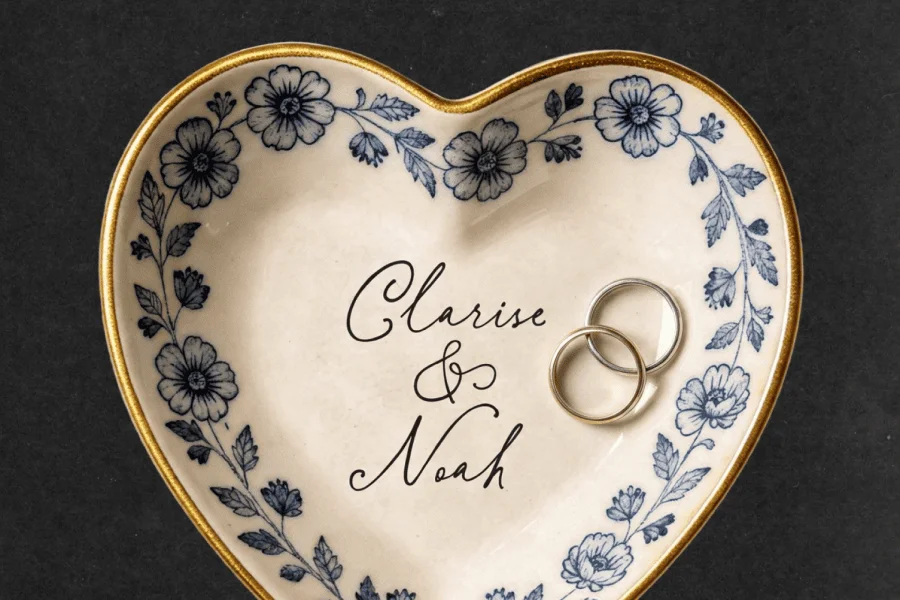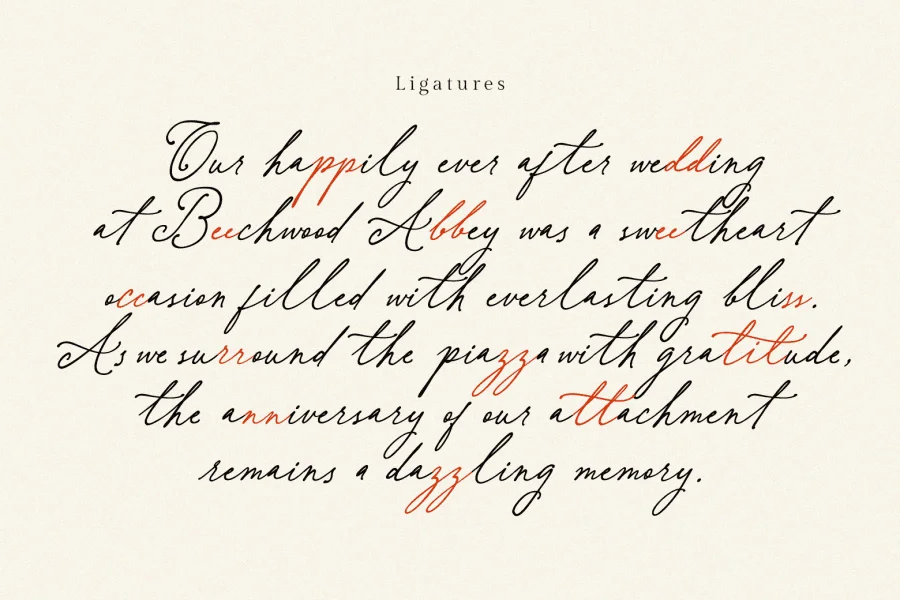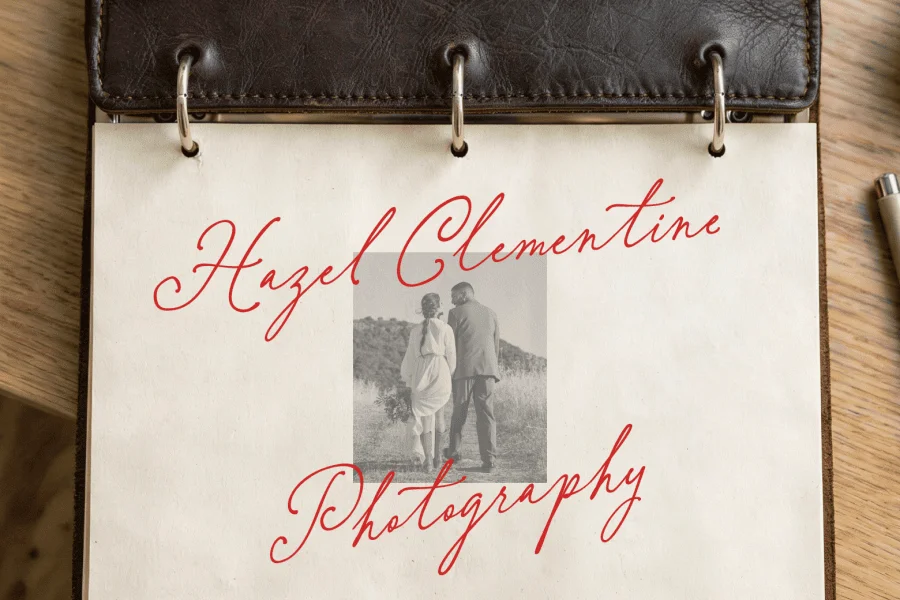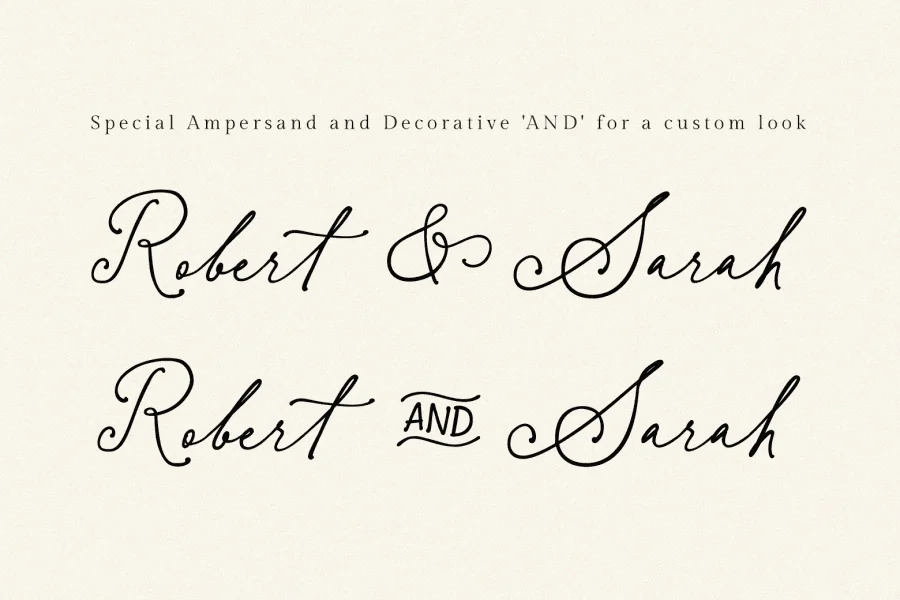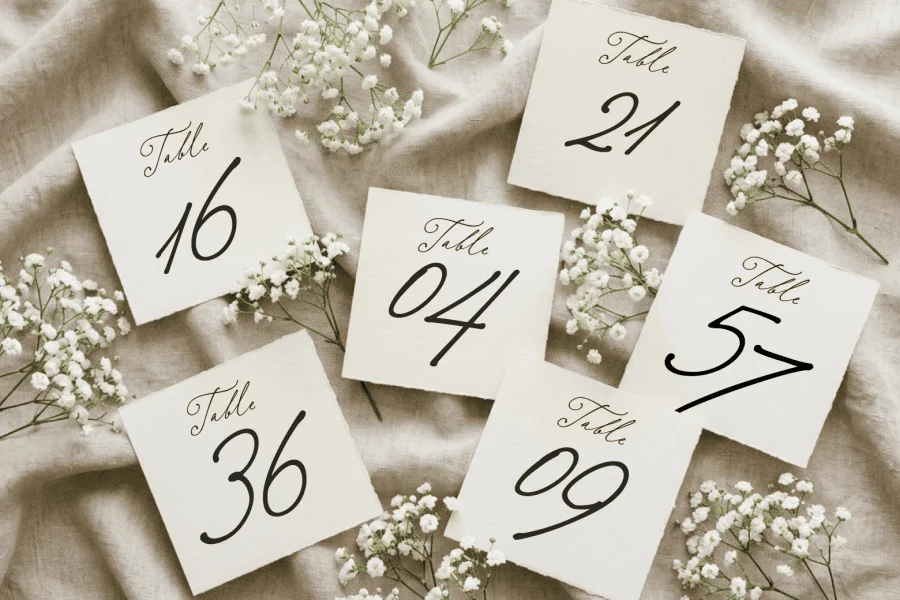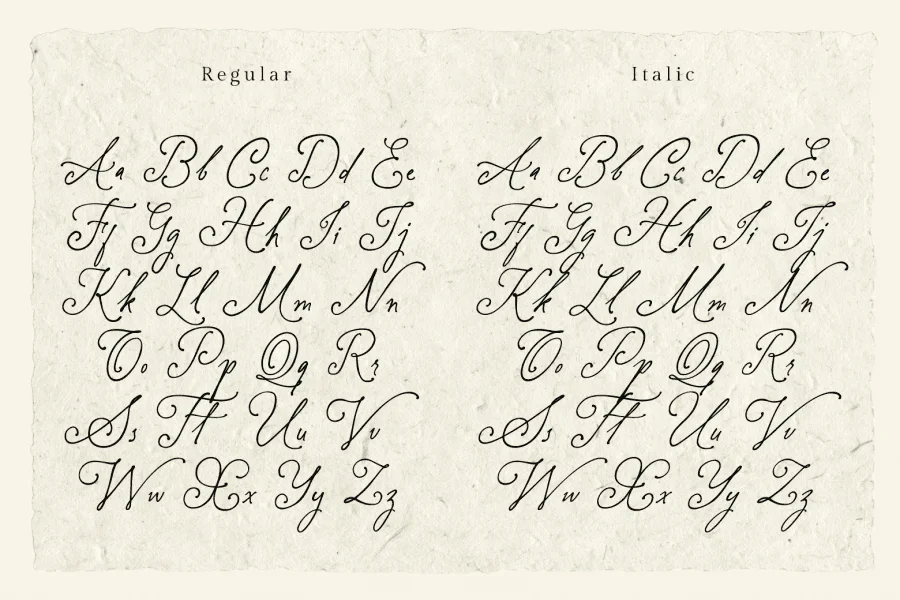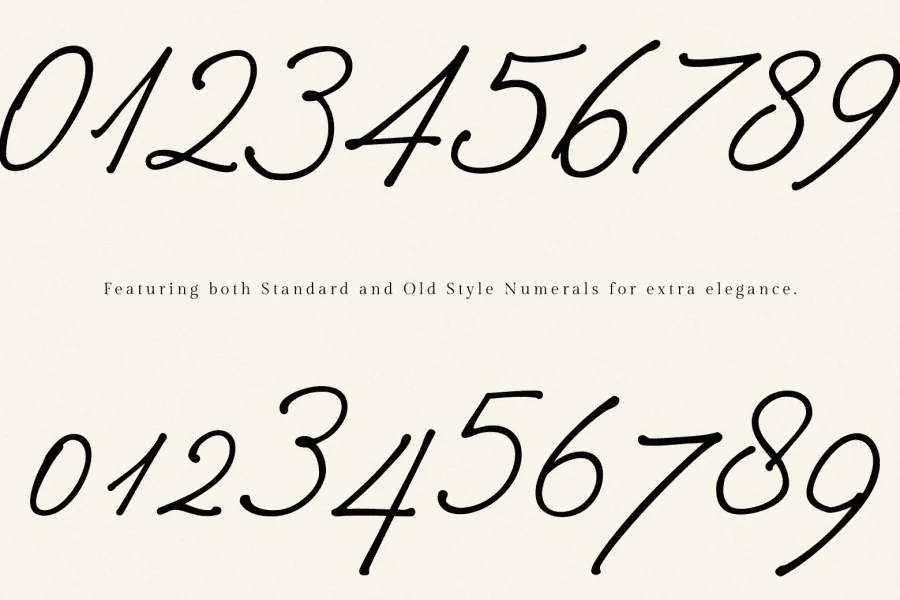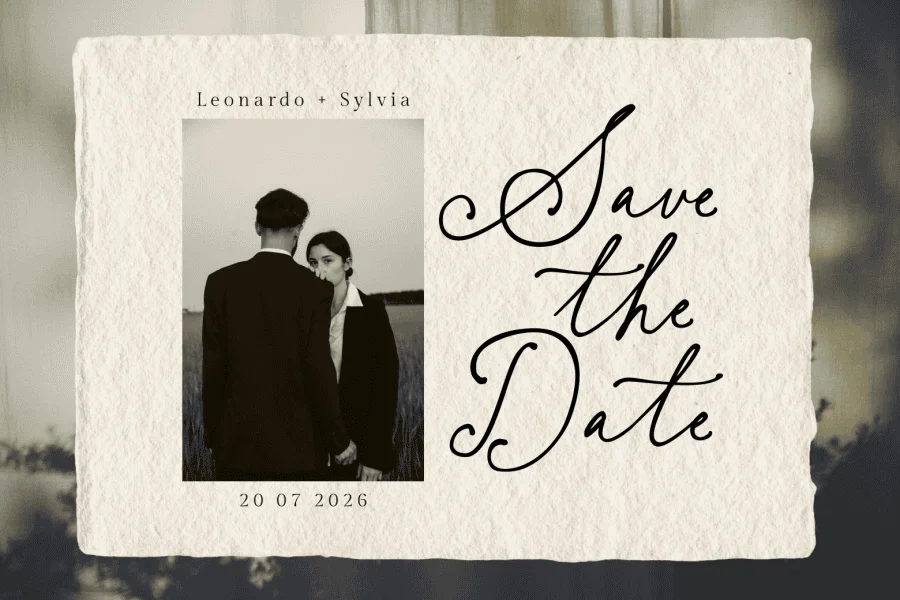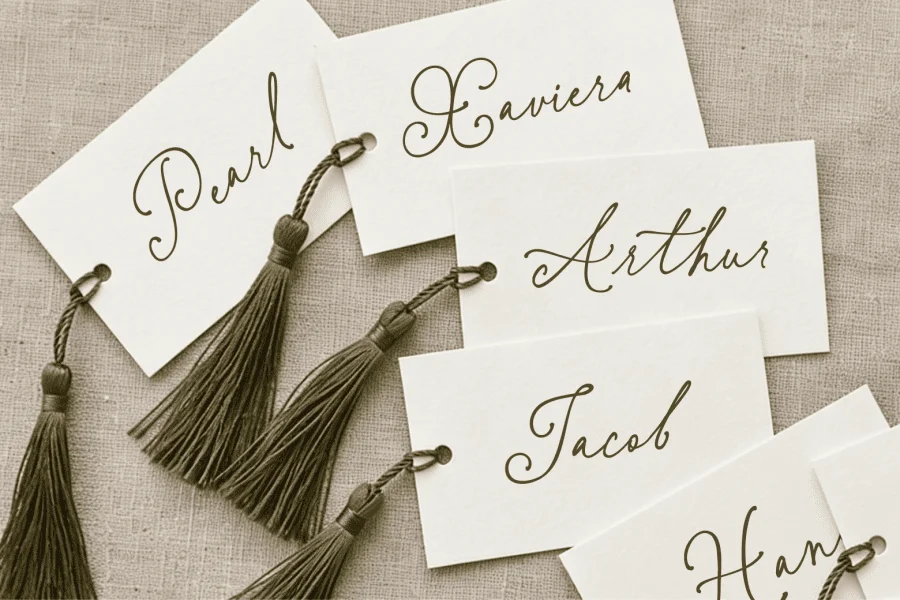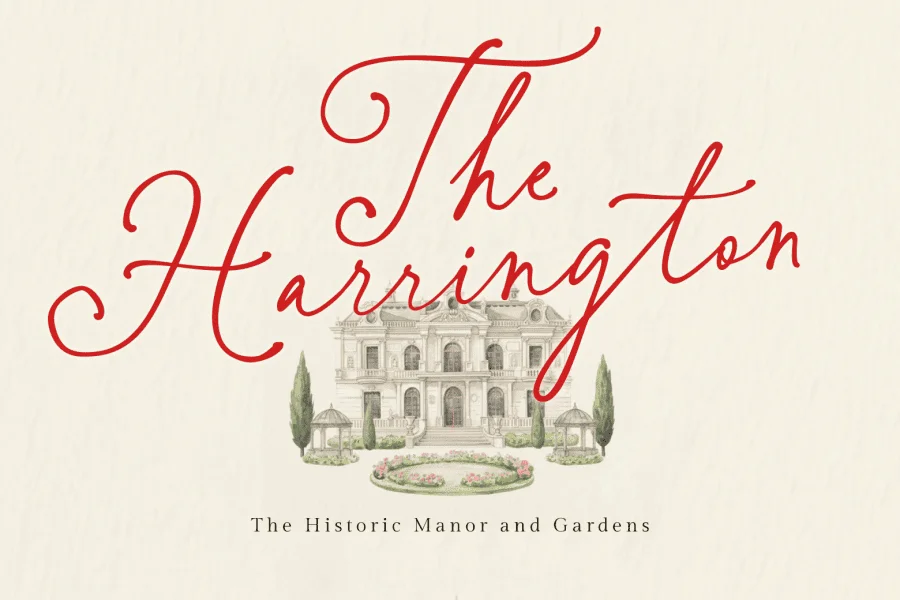
Betris and Daniel is a sophisticated and romantic handwritten font, meticulously crafted to bring a touch of personal charm and high-end aesthetics to your projects. With its fluid strokes and authentic calligraphy feel, this font is the perfect choice for wedding stationery, elegant branding, logos, social media quotes, and more. Available in Regular and Italic.
What makes Betris and Daniel truly stand out is its Smart Contextual Alternates. Say goodbye to rigid, robotic script endings! This font is "smart enough" to clean up its own tails. When turned on, it automatically detects the end of your words and replaces long, clumsy connectors with natural ending swashes for a flawless, authentic hand-written flow. It also features a comprehensive set of characters, including unique ligatures that mimic natural handwriting and two distinct styles of "and" connectivity (a graceful ampersand and a decorative catchword) to give your layouts a custom, hand-finished look.